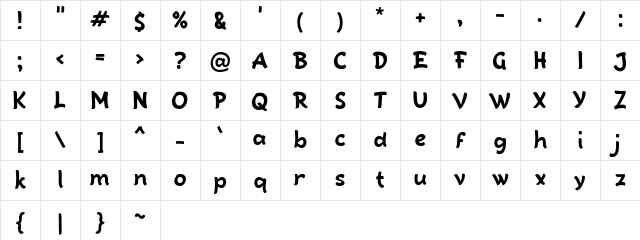
Complete Kungfoo Fighter DEMO glyph index. Displaying only characters natively supported by Kungfoo Fighter DEMO font.
Kungfoo Fighter is a composed and adaptable typeface that performs quietly and consistently across a wide range of design contexts.